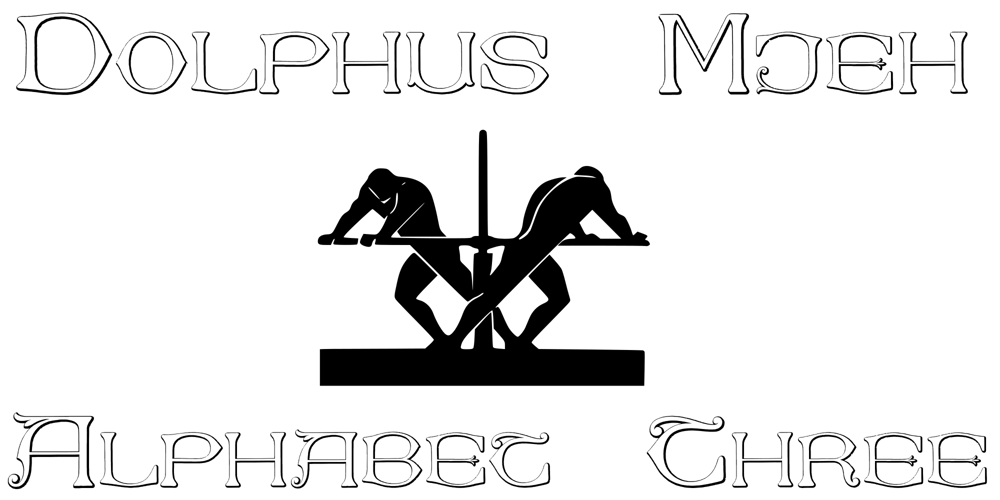
Dolphus Mieg Alphabet Three
Dolphus Mieg Alphabet Three Font Family was designed by Paulo W and published by Intellecta Design. Dolphus Mieg Alphabet Three contains 1 styles and family package options. The Dollfus Mieg Company was founded in 1800 by Daniel Dollfus (1769-1818) and Anne-Marie Mieg (1770-1852). In the 1890s and again in 1901 it published Monograms and Alphabets for Combination, a book with alphabets and monograms for cross-stitching. This book served as example for several digital fonts by Paulo W. Here you can get one of them,